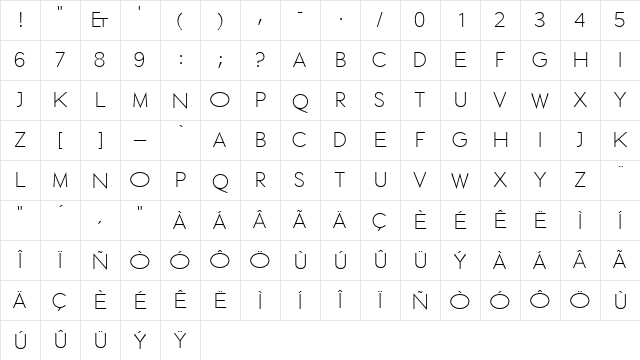
ETH Large Expanded Regular
Style: Expanded Regular
ETH Large Family
Design Context for ETH Large
ETH Large is a composed and adaptable typeface that performs quietly and consistently across a wide range of design contexts.